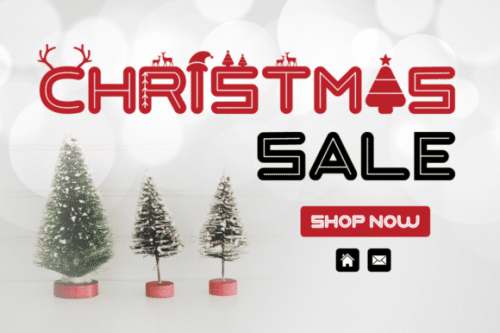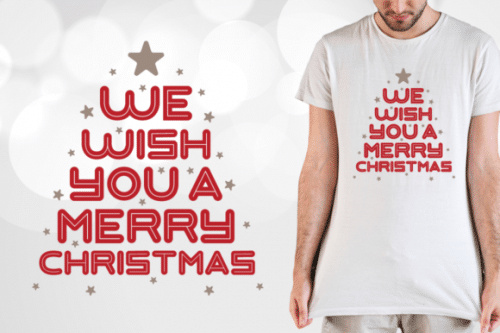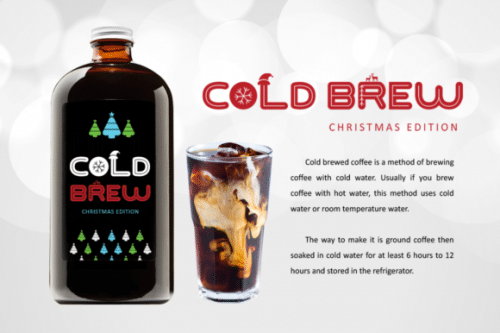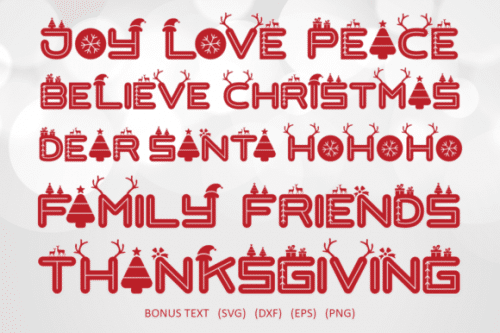
Love Santa merges a classic sans serif font with beautiful Christmas ornaments, creating a one-of-a-kind holiday font! Add some jolly Christmas vibes to any design project with this festive font.